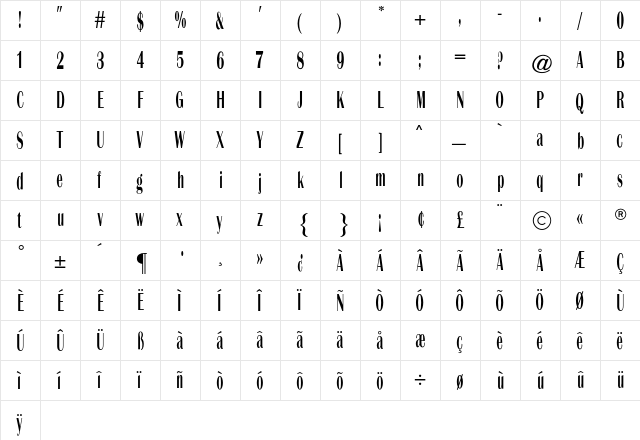
Metronome Gothic CG Regular
Design Context for Metronome Gothic CG Typeface
Metronome Gothic CG has the quiet confidence of well-executed sans-serif typography: versatile, unobtrusive, and dependable at any size.
Font Pairing: Works well alongside a characterful serif or display font that can carry the expressive load while Metronome Gothic CG handles the functional copy.
Pro Tip: Pair Metronome Gothic CG with a display or serif font for headlines — its neutral character makes it an excellent supporting player in complex typographic systems.